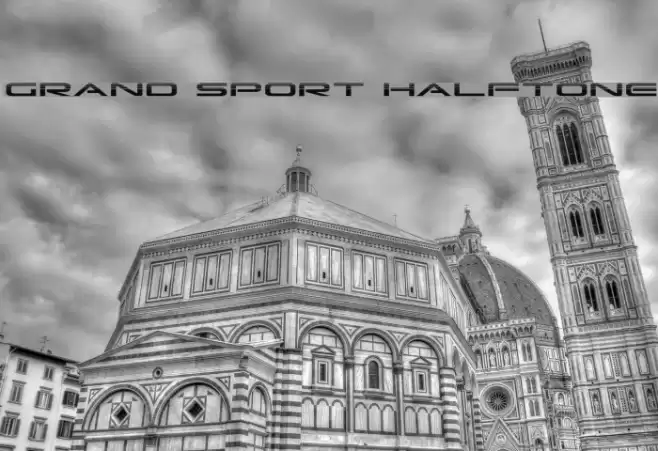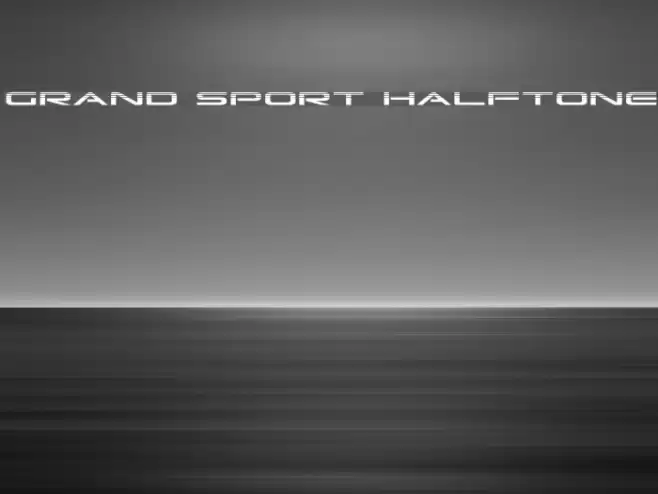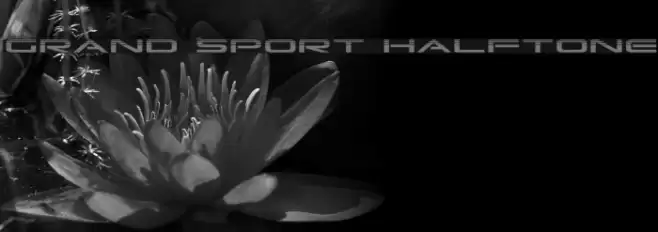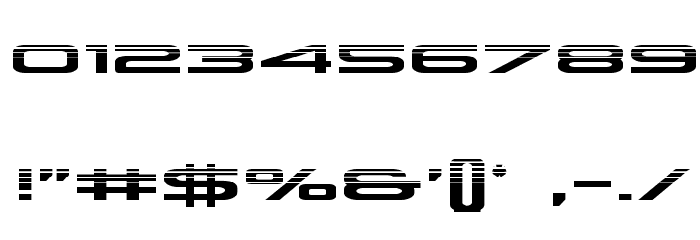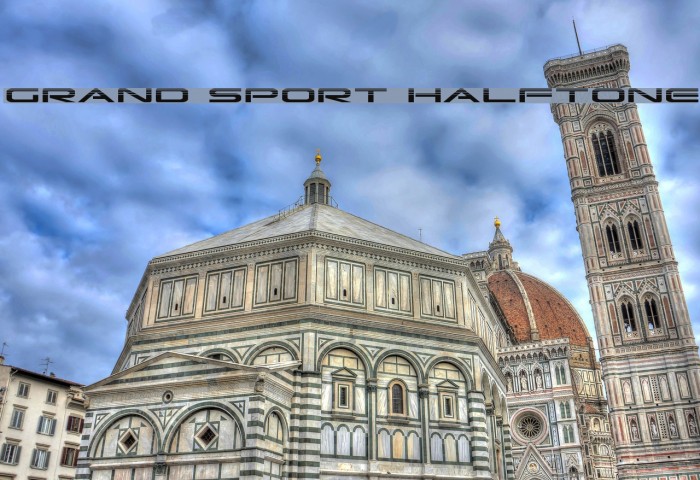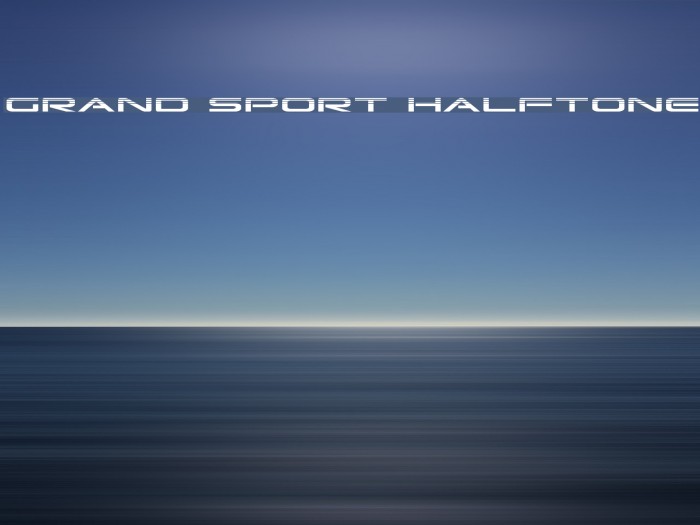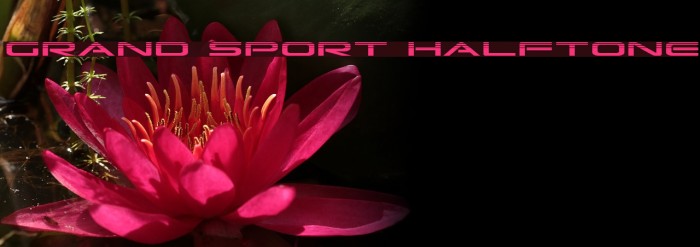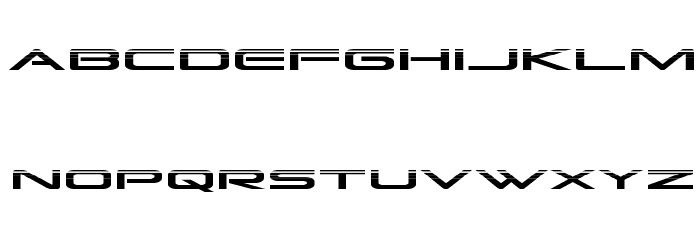
Grand Sport Halftone Font
Grand Sport Halftone Description
This font features a futuristic and sporty design with a halftone effect that gives it a dynamic and energetic appearance. The characters are bold and wide, with a distinct geometric style that incorporates horizontal lines and breaks within the strokes, creating a sense of movement and speed. The uppercase and lowercase letters maintain a consistent style, while the numerals and special characters complement the overall aesthetic. This font is ideal for projects that require a modern and edgy look, such as sports branding, automotive designs, or tech-related graphics.
A futuristic, sporty font with a halftone effect and geometric style from Uncategorized fonts.
- Proposed Projects: Ideal for sports branding, automotive designs, tech-related graphics, and dynamic posters.
- Width: Expanded